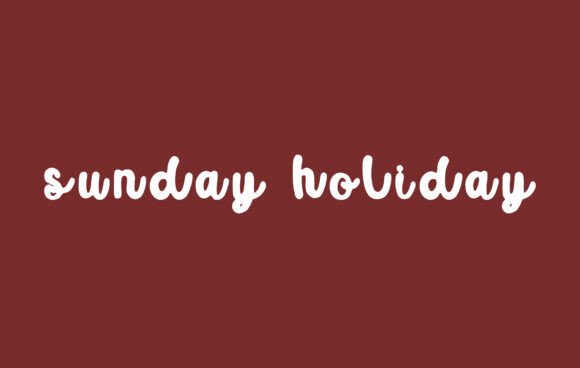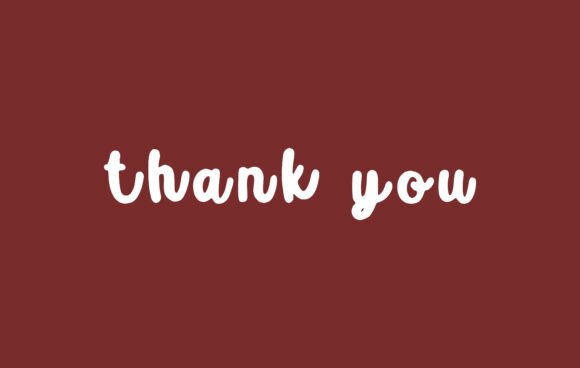
Biscuits Font: The Perfect Addition to Your Creative Projects
Are you looking for a font that adds a touch of romance and elegance to your designs? Look no further than Biscuits Font, an authentic handwritten font that is sure to become a true favorite. With its legible and versatile design, Biscuits Font is perfect for a wide range of creative projects, from magazine headlines and social media graphics to branding, wedding invitations, and more.
The Unique Charm of Biscuits Font
Biscuits Font is expertly designed to bring a romantic touch to your designs. Its handwritten style gives it a personal and intimate feel, making it perfect for projects that require a touch of warmth and personality. The font’s elegant lines and curves make it a great choice for titles, body text, and anything in between.
Key Features of Biscuits Font
- Authentic Handwritten Style: Biscuits Font is designed to look like it was written by hand, giving it a unique and personal touch.
- Legible and Versatile: The font is easy to read and can be used for both titles and body text, making it perfect for a wide range of projects.
- Romantic and Elegant: Biscuits Font adds a touch of romance and elegance to any design, making it perfect for wedding invitations, cards, and other special occasions.
Uses for Biscuits Font
Biscuits Font is a versatile font that can be used for a wide range of creative projects, including:
- Magazine Headlines: Add a touch of elegance and sophistication to your magazine headlines with Biscuits Font.
- Social Media Graphics: Use Biscuits Font to create eye-catching social media graphics that stand out from the crowd.
- Branding: Create a unique and memorable brand identity with Biscuits Font.
- Wedding Invitations: Add a touch of romance and elegance to your wedding invitations with Biscuits Font.
- Cards and Stationery: Use Biscuits Font to create beautiful and personalized cards and stationery.
Why Choose Biscuits Font?
With so many fonts to choose from, why choose Biscuits Font? Here are just a few reasons:
- Unique and Authentic: Biscuits Font is a unique and authentic handwritten font that will add a personal touch to your designs.
- High-Quality Design: The font is expertly designed to be legible and visually appealing.
- Versatile: Biscuits Font can be used for a wide range of creative projects, making it a great addition to any designer’s toolkit.
If you’re looking for a font that adds a touch of romance and elegance to your designs, look no further than Biscuits Font. With its authentic handwritten style, legible design, and versatility, Biscuits Font is the perfect addition to any creative project. Whether you’re a designer, crafter, or DIY enthusiast, Biscuits Font is sure to become a true favorite.
Get Creative with Biscuits Font